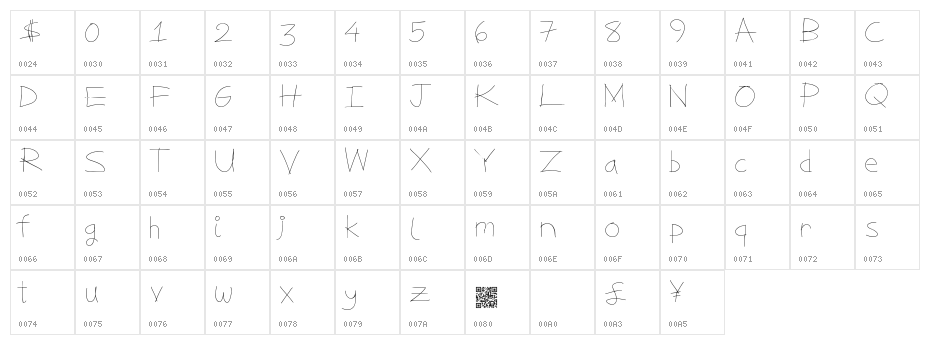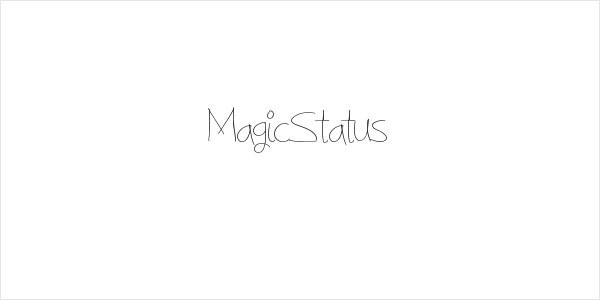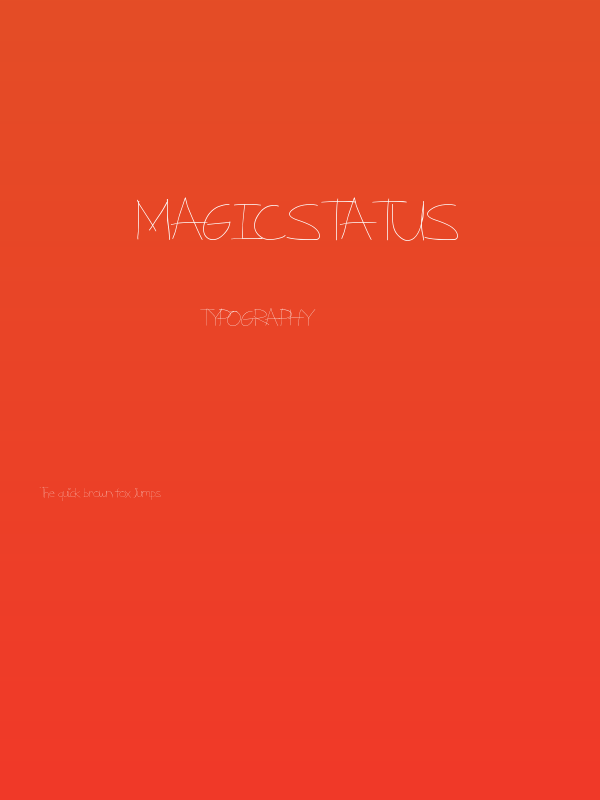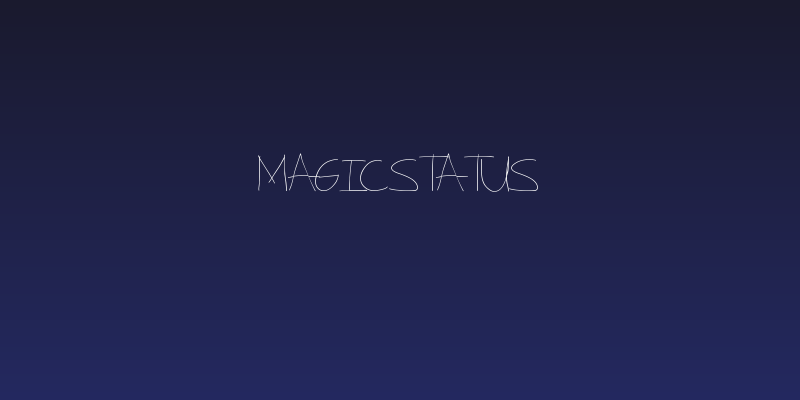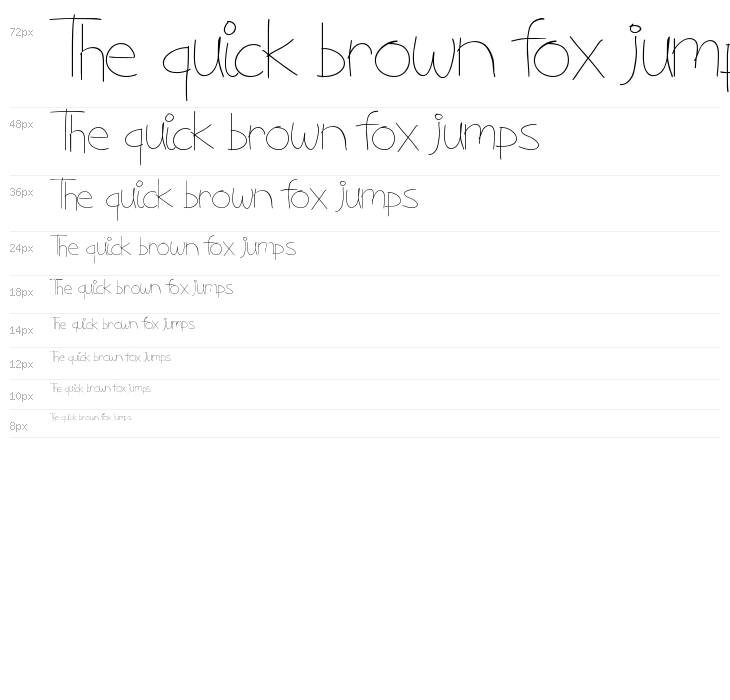
MagicStatus Font
MagicStatus Description
This font features a whimsical and playful design with thin, uneven strokes that give it a hand-drawn appearance. The characters are tall and narrow, with a slight irregularity that adds a unique charm. The uppercase letters maintain a consistent height, while the lowercase letters have a slightly more varied baseline, enhancing the casual feel. Numbers and special characters follow the same playful style, making the font suitable for creative and informal projects. Its distinctiveness lies in the quirky, almost sketch-like quality, making it stand out in any design.
| Width | Condensed |
| Use Case | Logos, Headlines, Posters |
| Proposed Projects | Ideal for children's books, creative posters, greeting cards, and playful branding. |